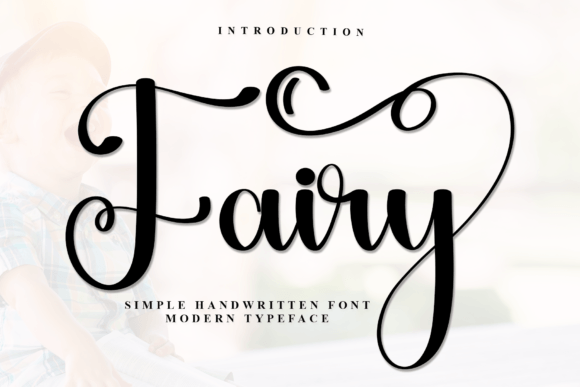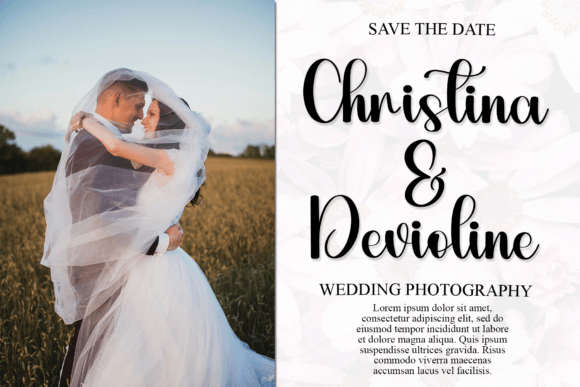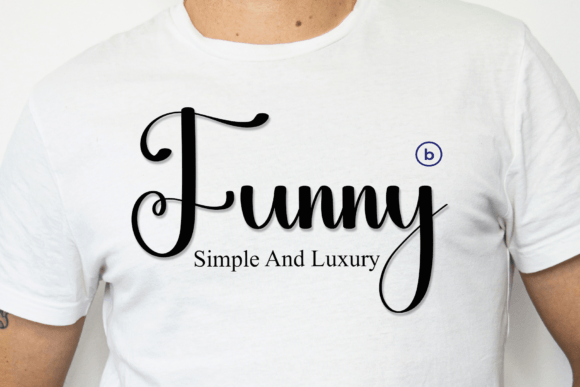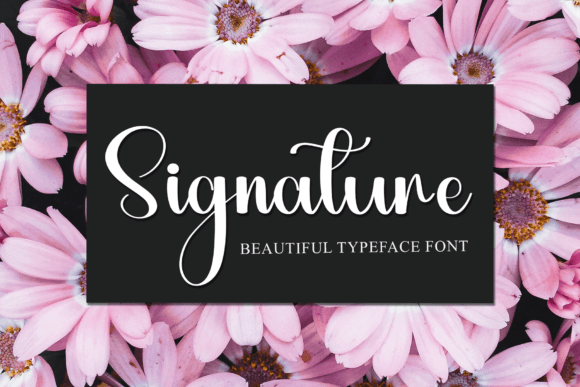
Fairy Font: Whimsical Handwritten Font for Cute Cricut Projects & DIY Crafts
About the Fairy Font
The Fairy Font is here to transform your projects with its distinctive character and style. Fairy is a festive and happy typeface that captures the spirit of the holiday season. With its decorative elements and unique flair, it adds a touch of charm to your designs. Perfect for greeting cards, gift labels, and holiday-themed projects, this font brings a cheerful and nostalgic atmosphere to your words.
Fairy Font’s playful, celebratory nature makes it ideal for projects requiring a lighthearted touch, such as children’s books, whimsical branding, or festive packaging designs. It excels in short, impactful text like headlines, slogans, and short quotes where its decorative details shine. However, its decorative elements make it less suitable for body text or UI elements where readability is paramount.
Consider pairing Fairy Font with a clean sans-serif like Open Sans for a balanced contrast, or a classic serif like Garamond for a touch of sophistication. For a more playful feel, a rounded geometric sans-serif could work well. Avoid pairing it with other highly decorative fonts, which would create visual clutter.
Fairy Font projects an overall feeling of joyous whimsy and festive cheer. Its personality is best described as lighthearted and celebratory, making it a strong choice for brands aiming for a friendly, approachable, and fun image.